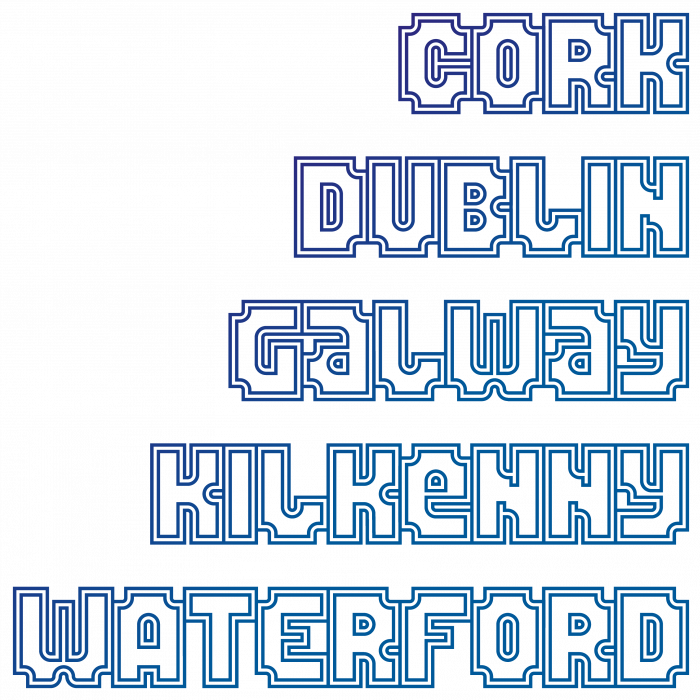
by four
01010011
Nice biline!
You can reduce the space between words a bit, IMHO. What do you think about this?
This is some terrific inline work! The cove edges are giving a lot of added personality. 10/10!
Congratulations! FontStruct Staff have deemed your FontStruction worthy of special mention. “Inniu” is now a Top Pick.
Well deserved TP! Congrats, compa!